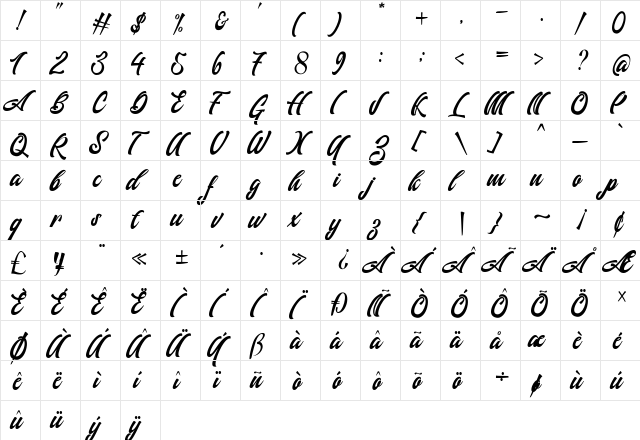
Fathoni Regular
Design Context for Fathoni Typeface
Fathoni is a composed and adaptable typeface that performs quietly and consistently across a wide range of design contexts.